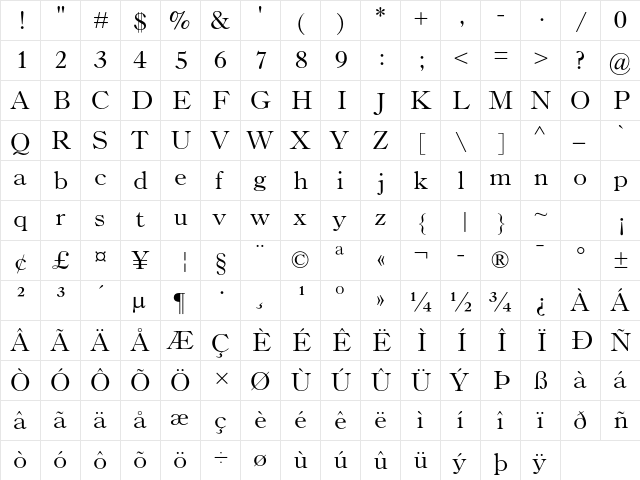
Binny Old Style MT Std Regular
Design Context for Binny Old Style MT Std Typeface
Binny Old Style MT Std is a composed and adaptable typeface that performs quietly and consistently across a wide range of design contexts.